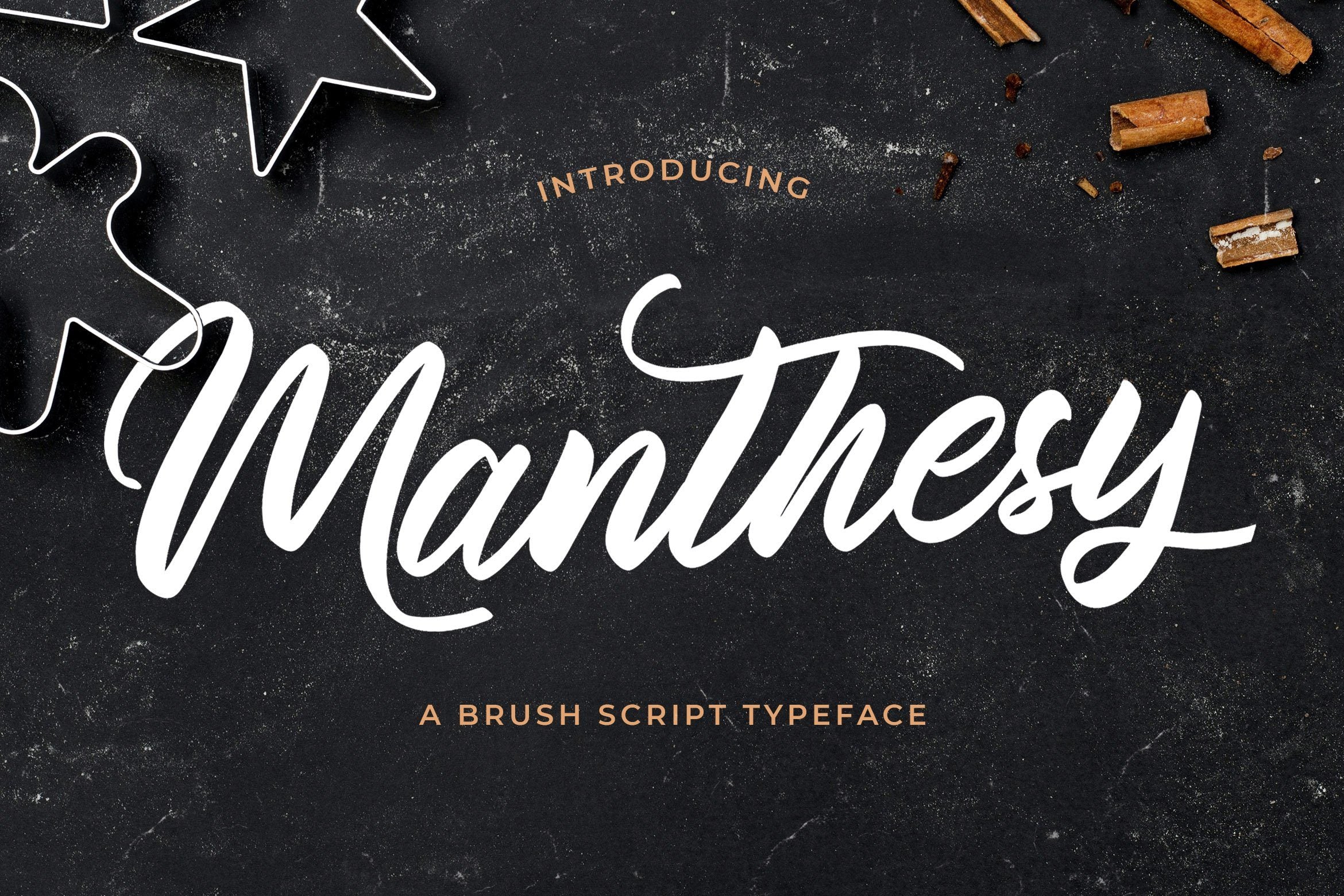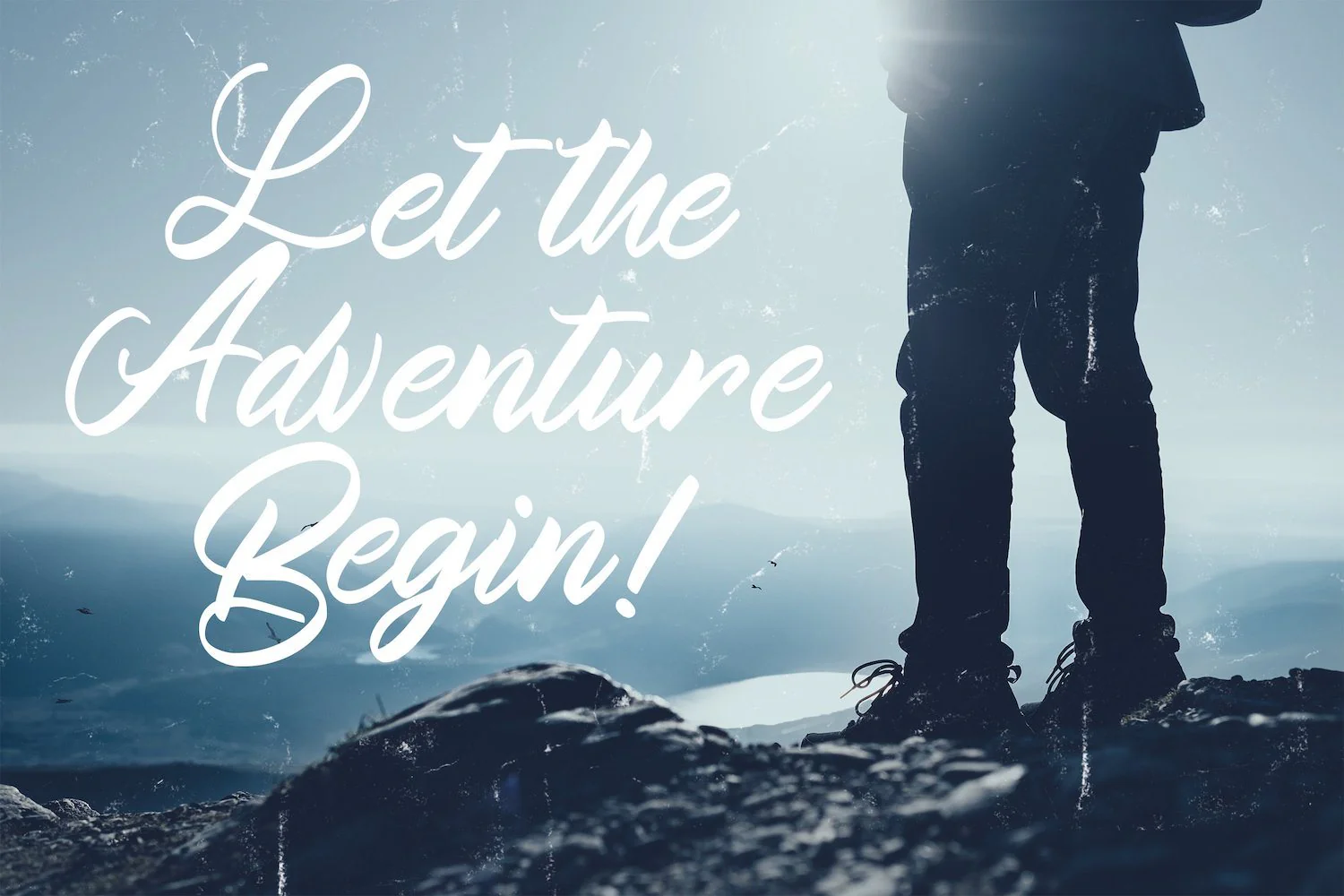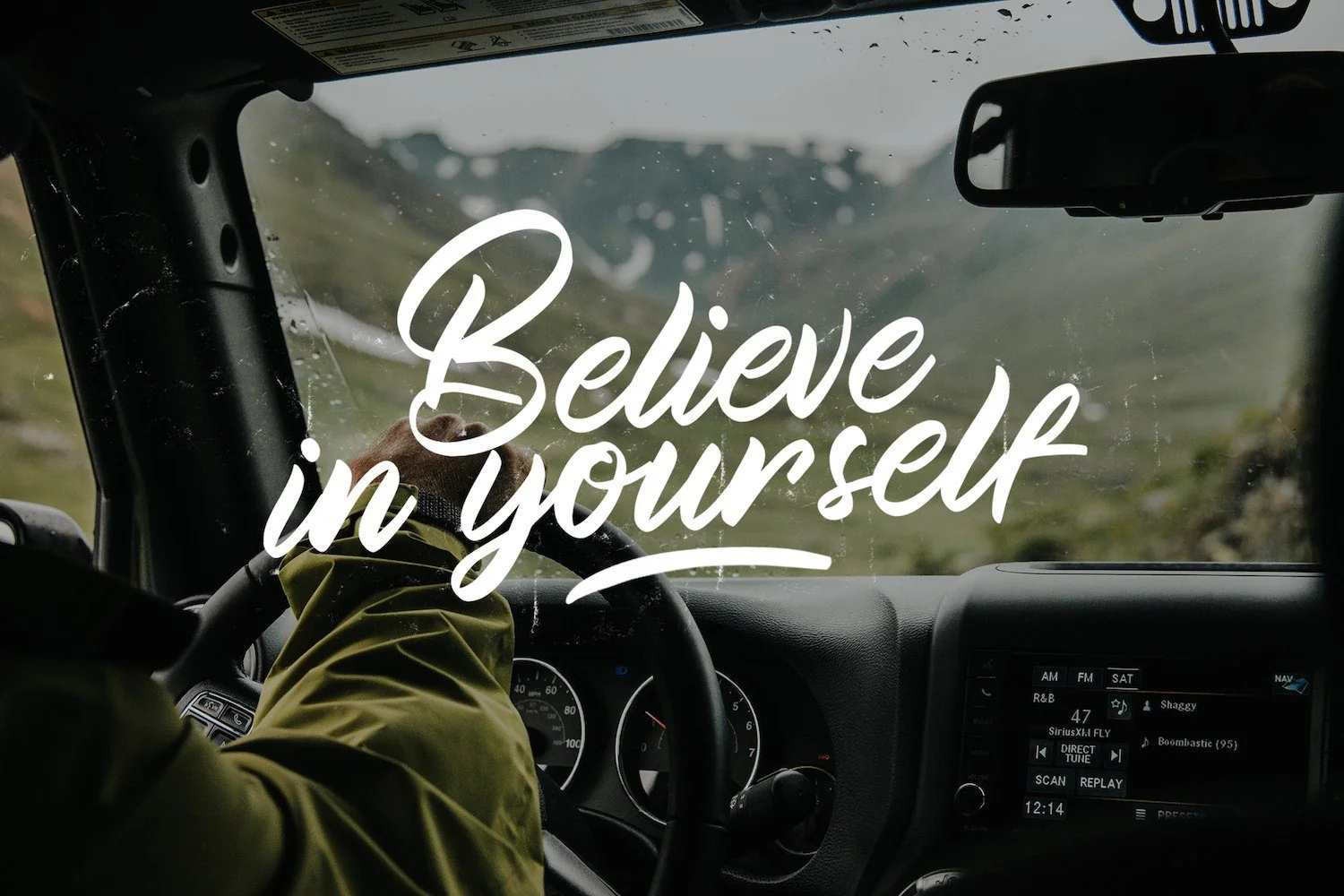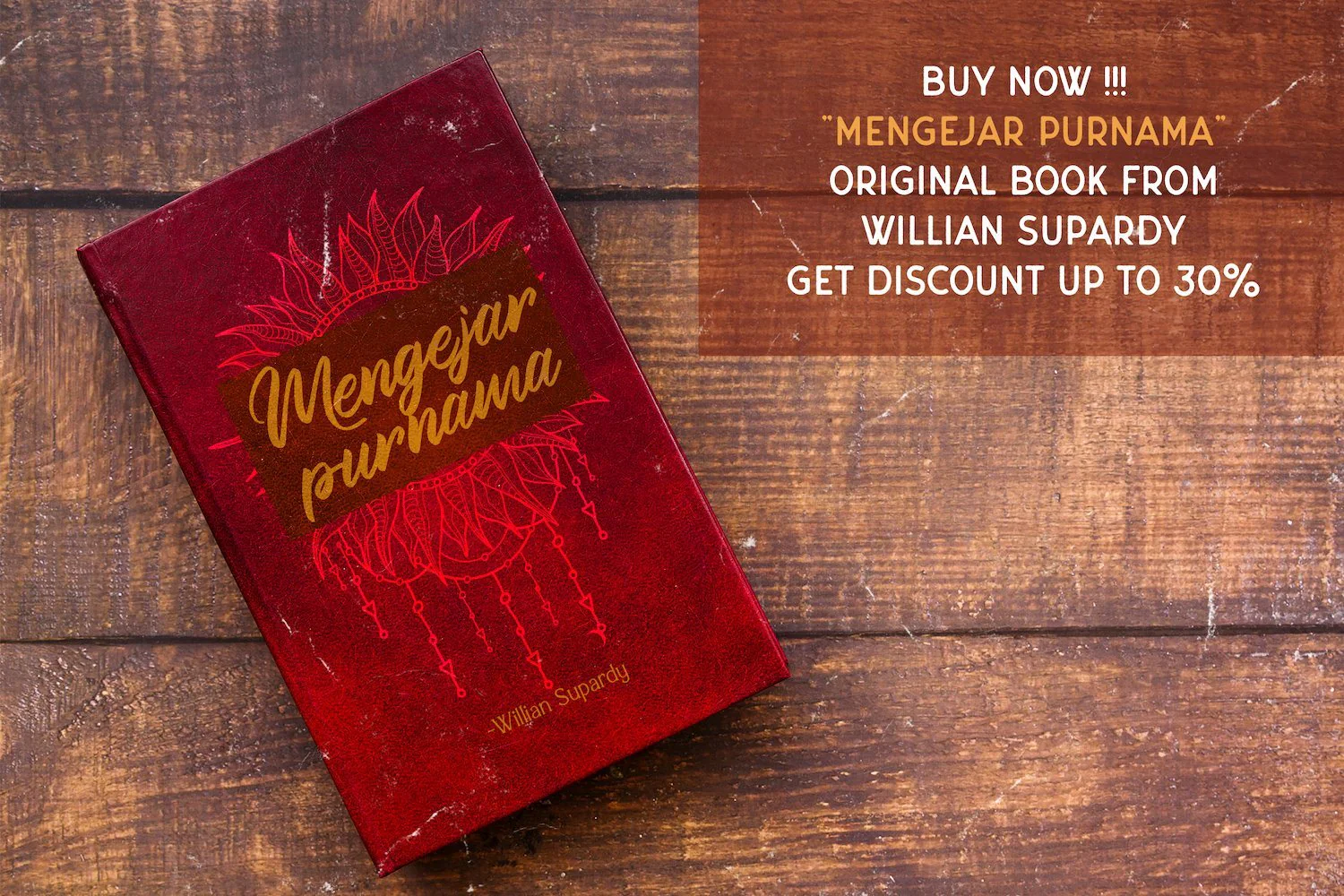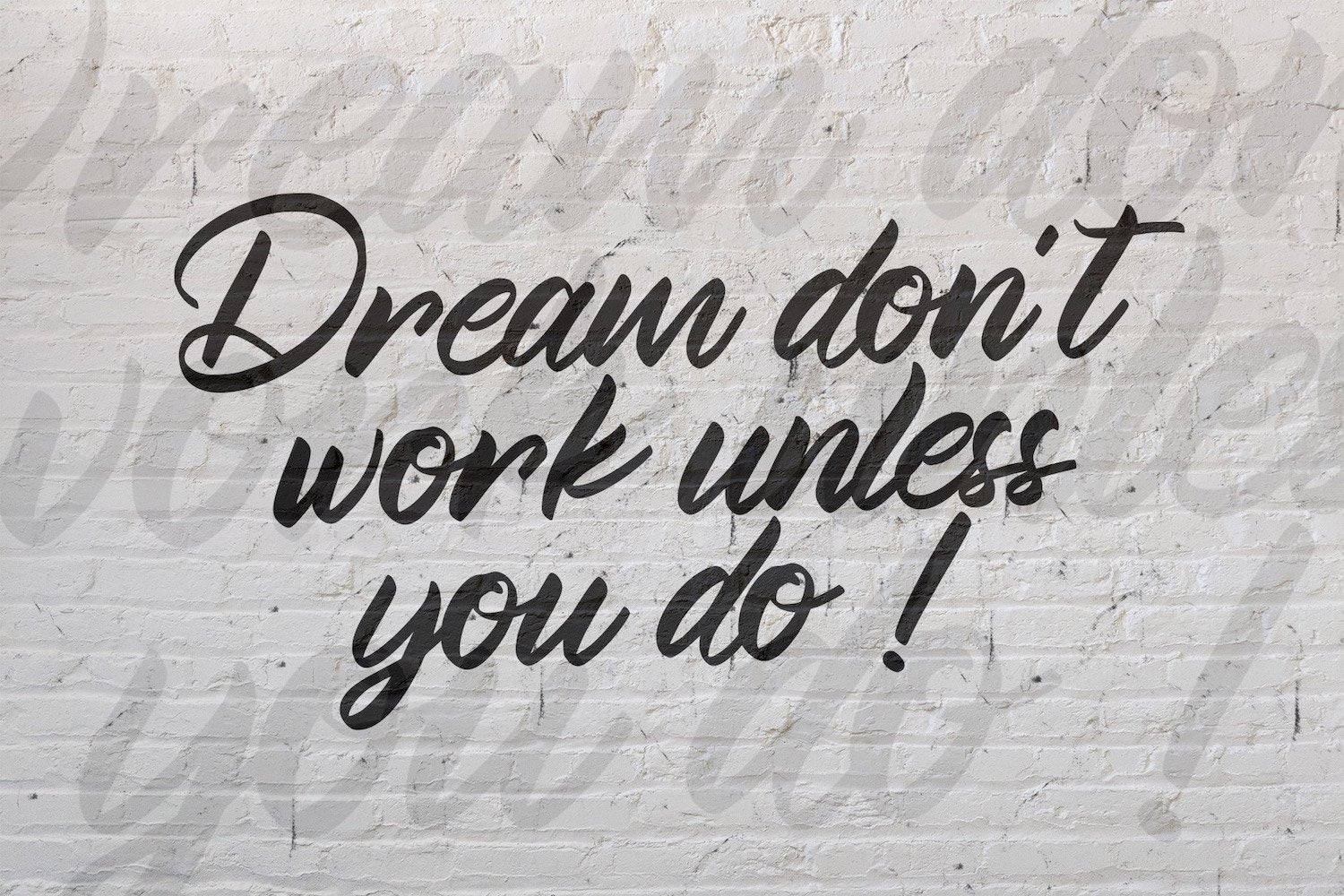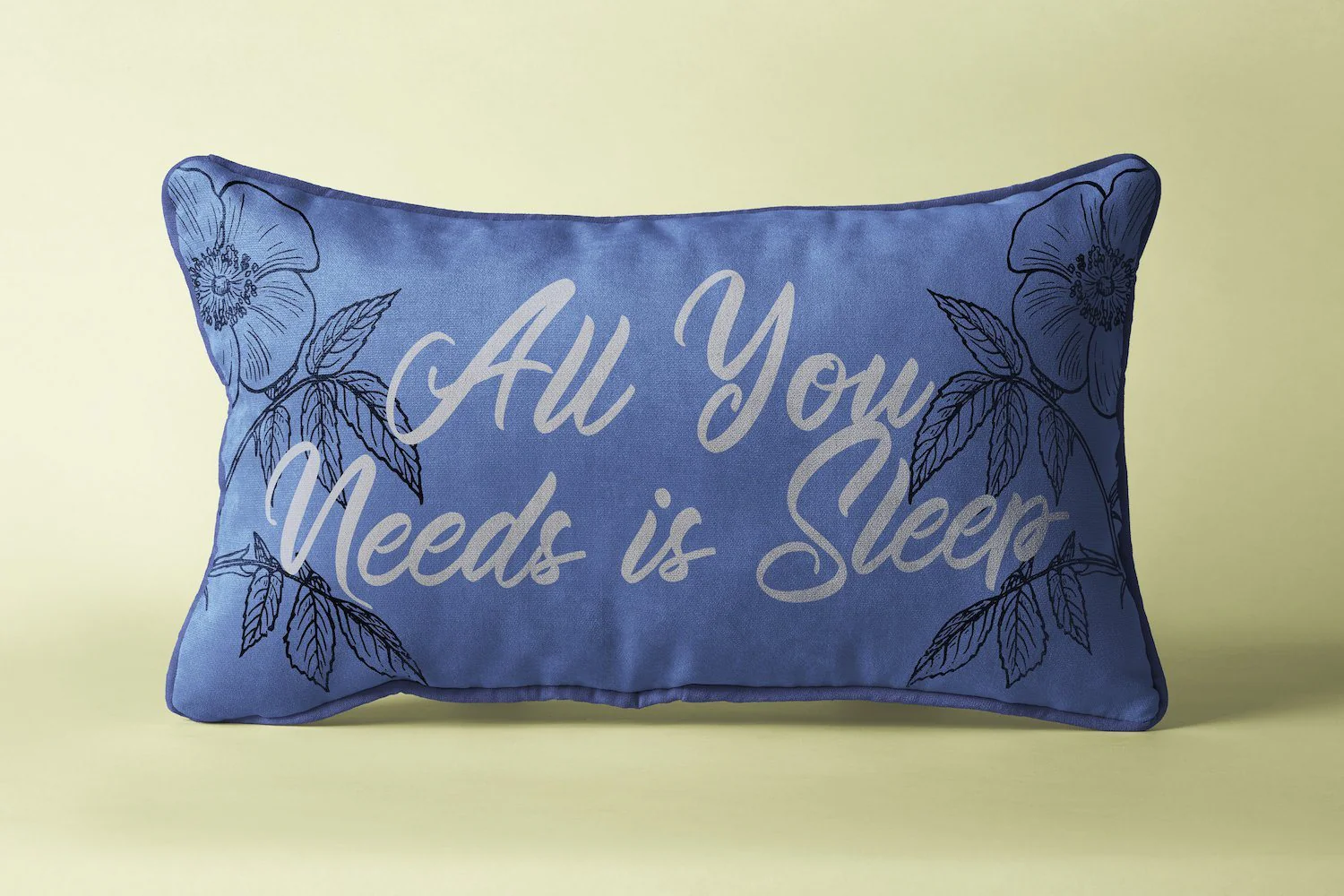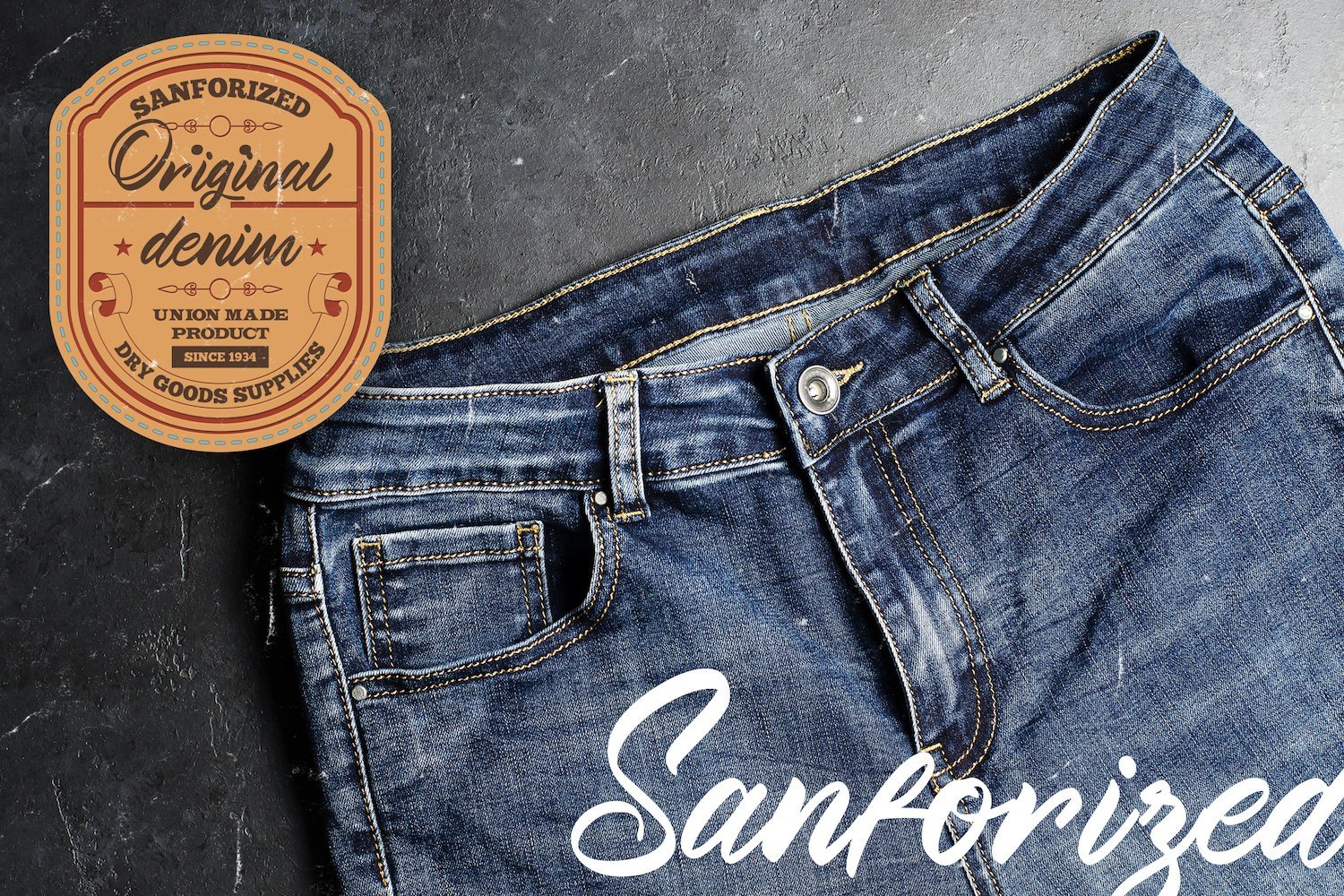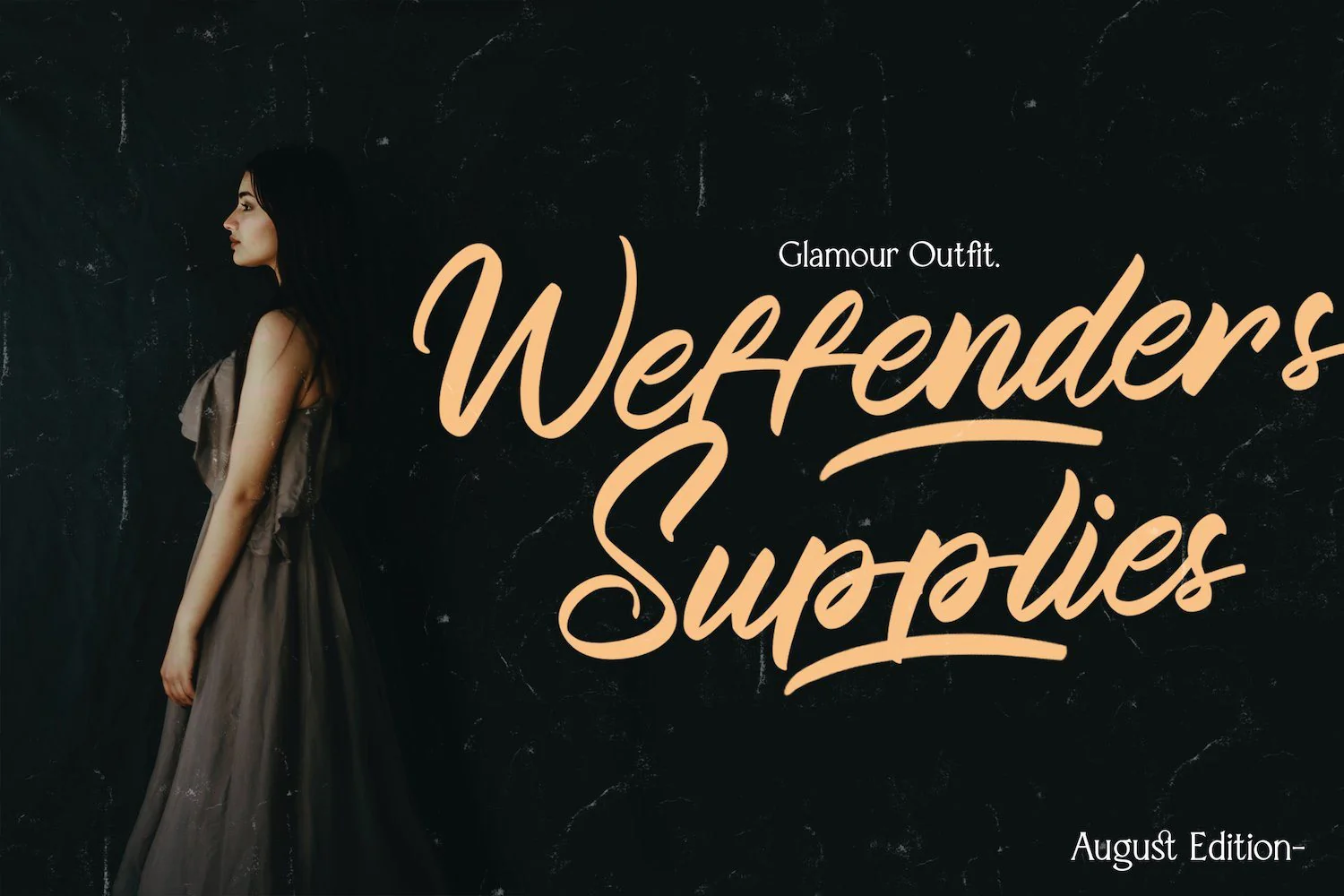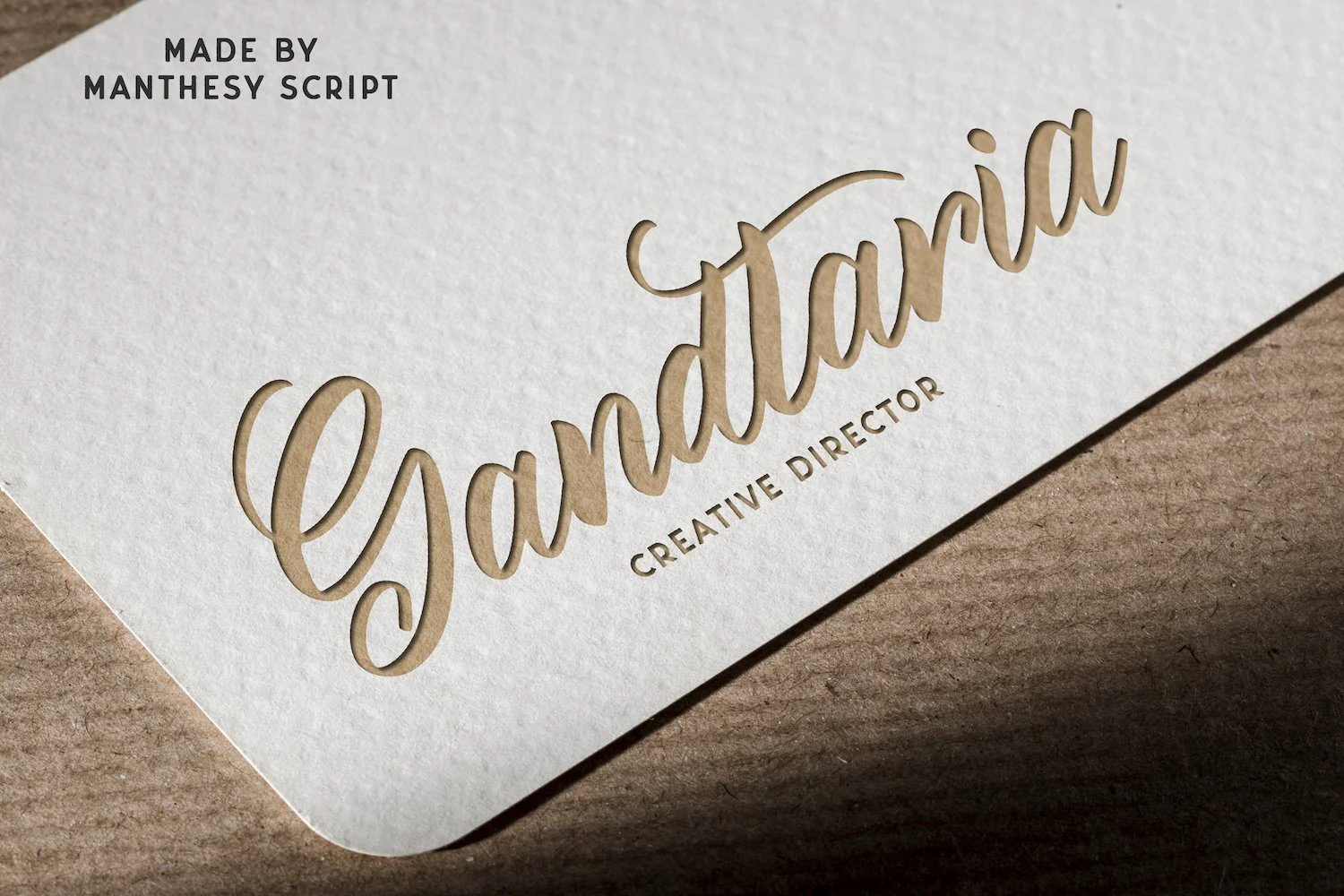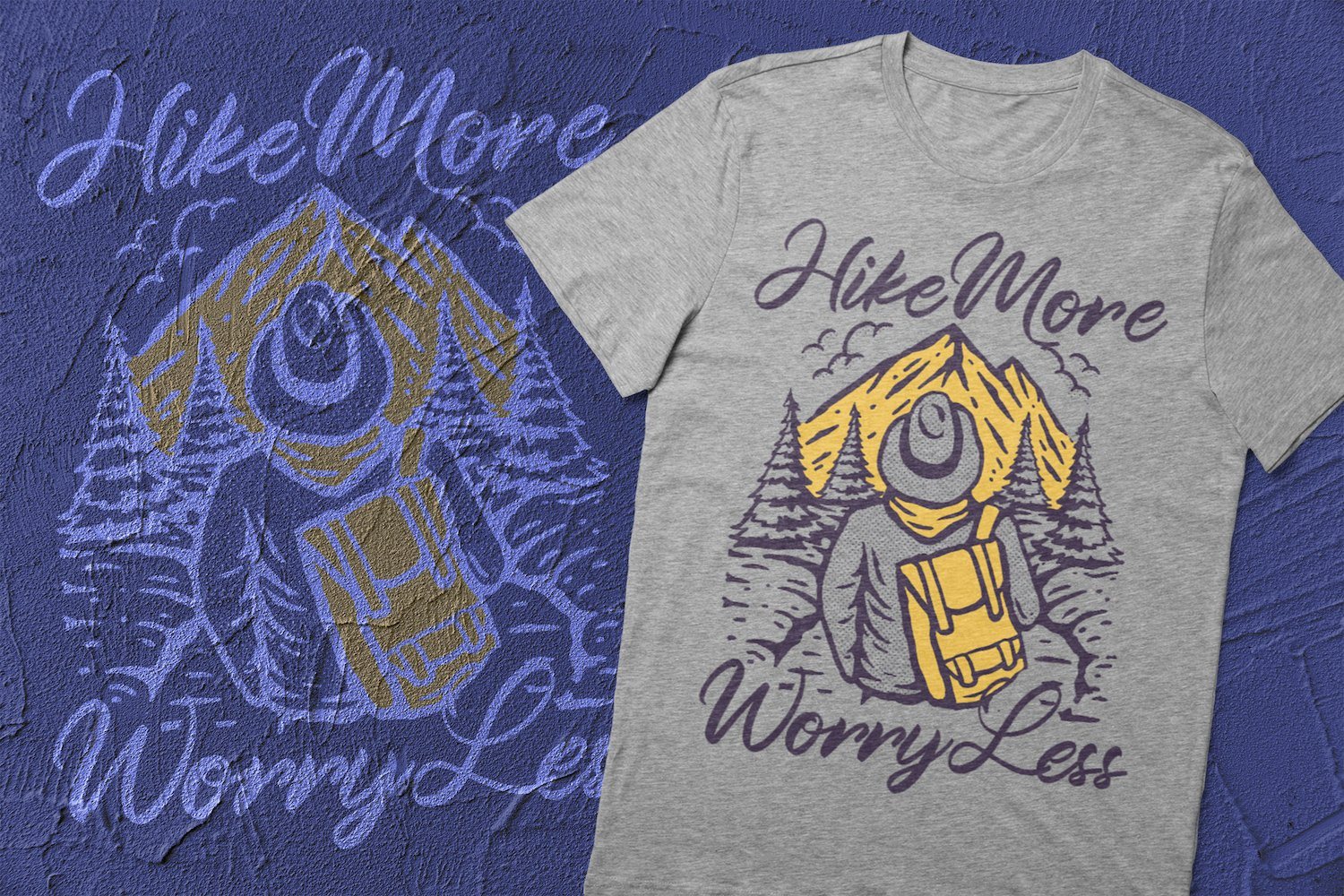
Manthesy - Brush Script Font
Introducing Manthesy - Brush Script Font
Manthesy is a flowing and elegant handwritten font, created with the help of a brush pen. Get inspired by its unique and beautiful style and add it to your favorite designs!
Introducing Manthesy - Brush Script Font
Manthesy is a flowing and elegant handwritten font, created with the help of a brush pen. Get inspired by its unique and beautiful style and add it to your favorite designs!